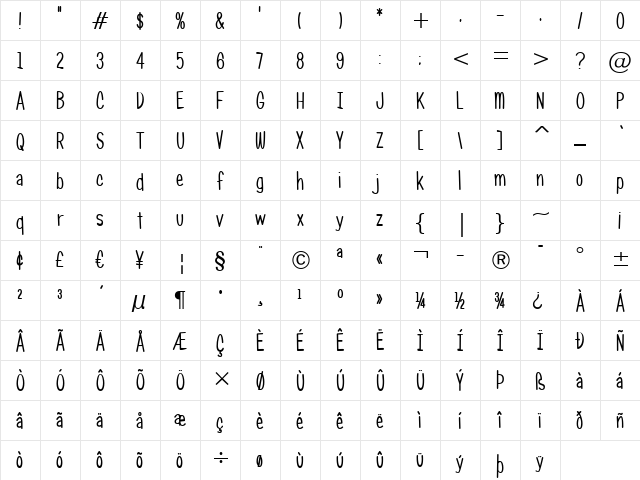
Complete Candy Round BTN Cond Regular glyph index. Displaying only characters natively supported by Candy Round BTN Cond Regular font.
Candy Round BTN Cond softens its letterforms with rounded terminals, giving it an approachable, friendly quality that works well in consumer-facing and digital contexts.
Font Pairing: Pairs well with a rounded or humanist sans for body copy, maintaining the friendly tone without relying on Candy Round BTN Cond to carry extended reading.
Pro Tip: Use Candy Round BTN Cond for UI elements, app interfaces, and anywhere a friendly, approachable tone needs to be maintained without sacrificing clarity.